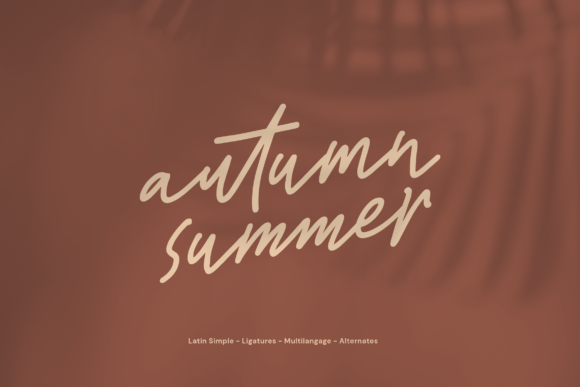
Introduction to Autumn Summer Font
Individuals’ natural handwriting reflects their emotions and personalities.
Individual handwriting carries unique characteristics, such as pressure variations, slants, and flow, that set it apart from typed text Organic writing evokes nostalgia and authenticity by connecting deeply with human touch and expression.
Key Features of Autumn Summer Font
Why Choose Autumn Summer Font?
Autumn Summer Font offers exceptional quality and versatility, making it a valuable addition to your design toolkit. Whether you’re creating for personal projects or commercial use, Autumn Summer Font delivers professional results.